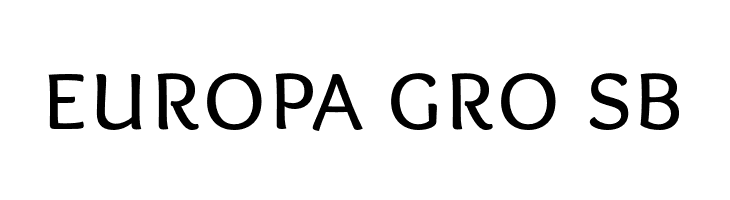
A playful, hand-drawn style font with tall, narrow letters and a casual feel.
A playful and dynamic font with a casual, friendly appearance.
A playful, casual handwritten font with fluid strokes and rounded edges.
A casual, friendly handwritten font with smooth, flowing strokes.
A playful, handwritten font with a casual and informal style.
A playful, handwritten font with fluid strokes and a casual feel.
A bold, playful font with a hand-drawn, dynamic style.